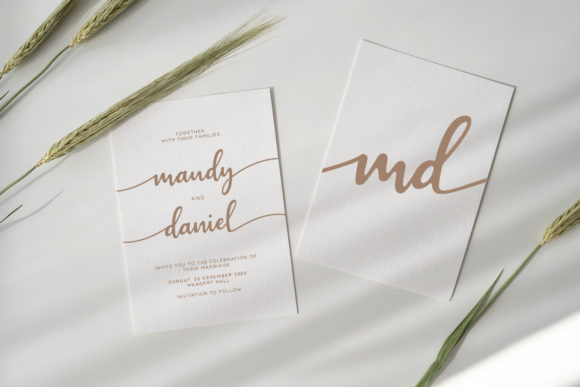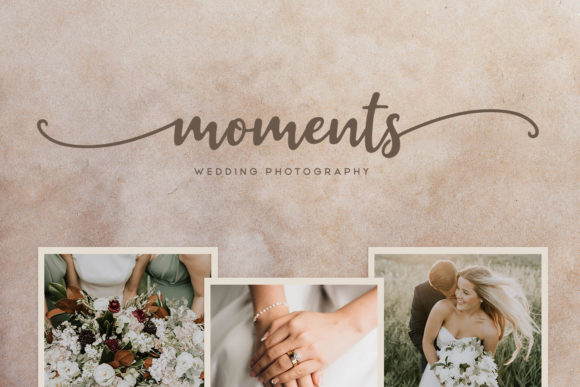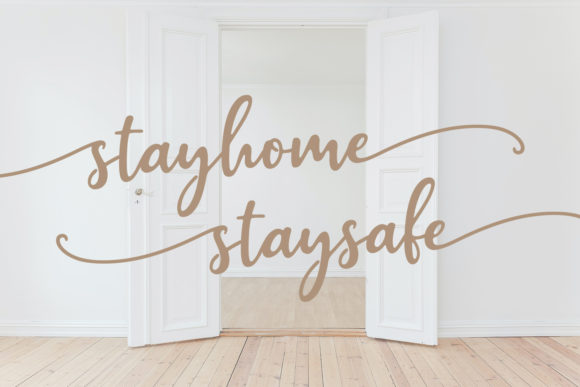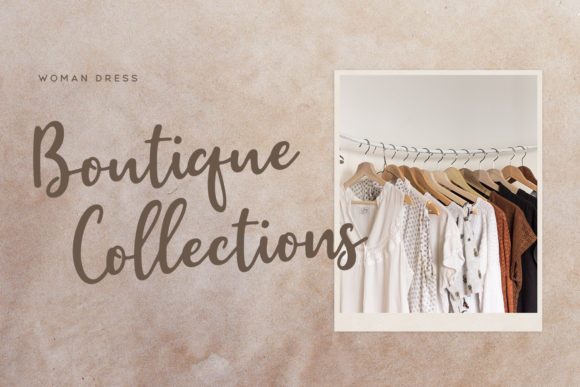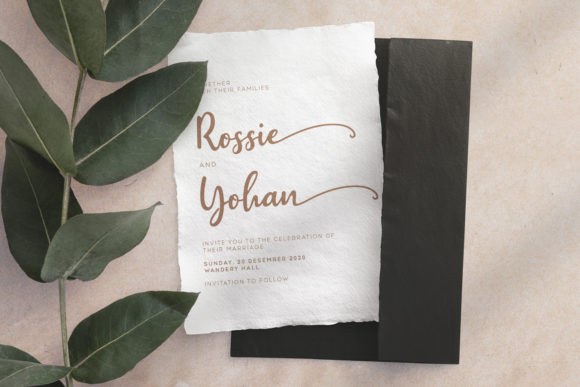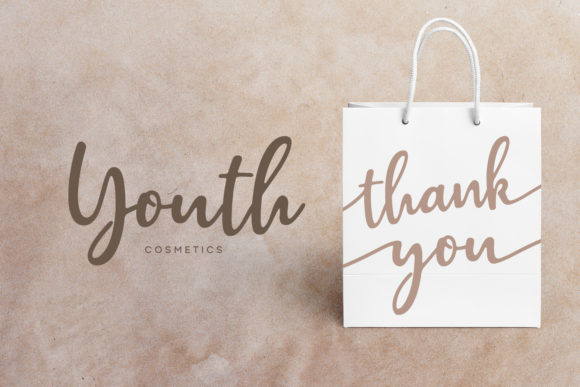
Discover the Charm of Dear Someone Font: Elevate Your Designs with Elegance
In the world of typography, few fonts capture the essence of romance and sophistication as beautifully as the Dear Someone font. This modern script font has taken the design community by storm with its authentic feel and versatile applications. Whether you’re a designer looking for the perfect typeface for a wedding invitation, a crafter aiming to create stunning stationary art, or a social media enthusiast seeking to make your posts stand out, Dear Someone font is an excellent choice. In this article, we’ll delve into the characteristics of Dear Someone font, explore its uses, and provide tips on how to make the most of this gorgeous typeface.
The Allure of Dear Someone Font
Dear Someone font is a modern script typeface that exudes elegance and charm. Its authentic feel is reminiscent of handwritten scripts, yet it maintains a level of sophistication that makes it suitable for a wide range of applications. The font features flowing lines, delicate strokes, and a warm, inviting tone that can add a touch of personality to any design.
Key Features of Dear Someone Font
- Modern Script Style: Dear Someone font boasts a contemporary script style that is both trendy and timeless. Its unique letterforms are designed to evoke an emotional response, making it perfect for designs that require a personal touch.
- Authentic Feel: The font’s authentic feel sets it apart from more traditional script fonts. It has a handcrafted quality that gives it a warm, organic look.
- Versatility: Dear Someone font is incredibly versatile. It can be used for a variety of projects, from wedding invitations and greeting cards to social media posts and stationary art.
- Ease of Use: The font is easy to read and works well in both digital and print formats, making it a great choice for designers and crafters alike.
Creative Uses for Dear Someone Font
Dear Someone font is a versatile typeface that can be used in a multitude of creative projects. Here are some ideas to get you started:
- Wedding Invitations: Create stunning wedding invitations that set the tone for the big day. The font’s elegant and romantic feel makes it perfect for wedding-related designs.
- Stationary Art: Add a touch of sophistication to your stationary art with Dear Someone font. Use it to create beautiful notecards, journals, and other paper crafts.
- Social Media Posts: Make your social media posts stand out with Dear Someone font. Its modern and trendy feel is sure to grab the attention of your followers.
- Greeting Cards: Create cute and personalized greeting cards for special occasions like birthdays, anniversaries, and holidays.
Tips for Using Dear Someone Font
To get the most out of Dear Someone font, here are some tips to keep in mind:
- Pair it with Other Fonts: Dear Someone font pairs well with sans-serif fonts like Arial or Helvetica. Experiment with different font combinations to find the perfect match for your design.
- Play with Colors: The font looks great in a variety of colors, from soft pastels to rich jewel tones. Experiment with different color schemes to find the one that works best for your design.
- Use it Sparingly: While Dear Someone font is beautiful, it can be overwhelming if used excessively. Use it sparingly to add a touch of elegance to your design.
Dear Someone font is a beautiful and versatile typeface that can elevate your designs with its elegant and romantic feel. Whether you’re a designer, crafter, or social media enthusiast, this modern script font is sure to inspire your creativity. With its authentic feel, versatility, and ease of use, Dear Someone font is a great addition to any design toolkit. So why not give it a try and see how it can transform your designs?
In conclusion, Dear Someone font is a gorgeous typeface that can add a touch of sophistication and charm to any design. Its modern script style, authentic feel, and versatility make it perfect for a wide range of applications. Whether you’re looking to create stunning wedding invitations, beautiful stationary art, eye-catching social media posts, or cute greeting cards, Dear Someone font is an excellent choice.